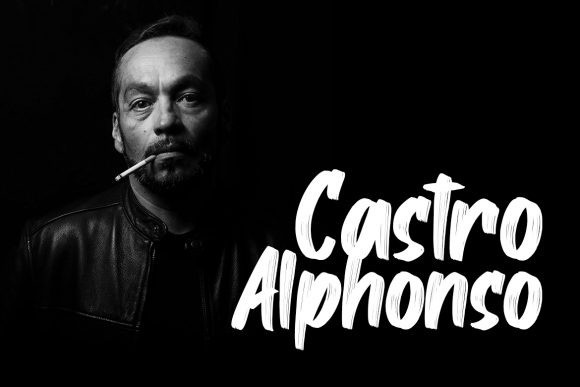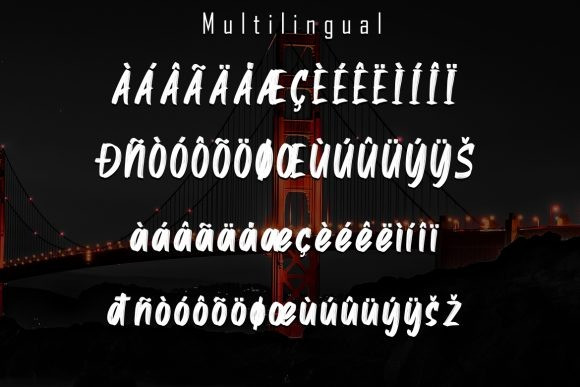
Alston Brush Font
Alston Brush Font is a brushed, thick lettered display font. It has an urban, cool and modern look that can be used for logos, branding, invitations, stationery, wedding designs, social media posts, and much more!